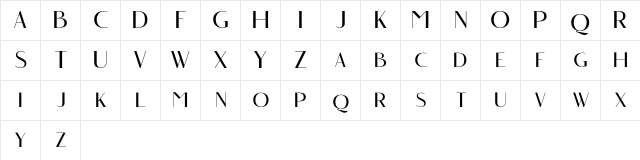
Angelic Bonques Free Sans Regular
| Foundry | Craft Supply Co |
Design Context for Angelic Bonques Free Sans Typeface
Angelic Bonques Free Sans takes a measured approach to typography — its balanced proportions and neutral character make it a reliable workhorse for both digital and print work.
Pro Tip: Use Angelic Bonques Free Sans in both headline and body roles to test its range before committing to a single application.